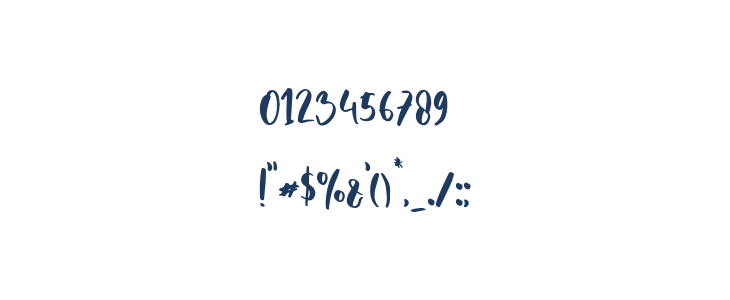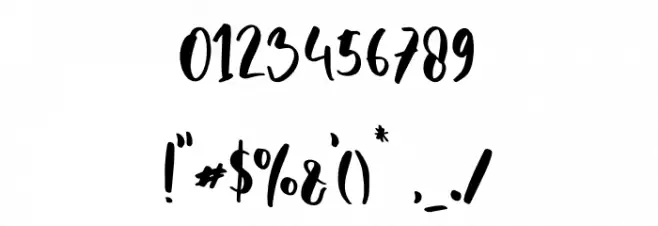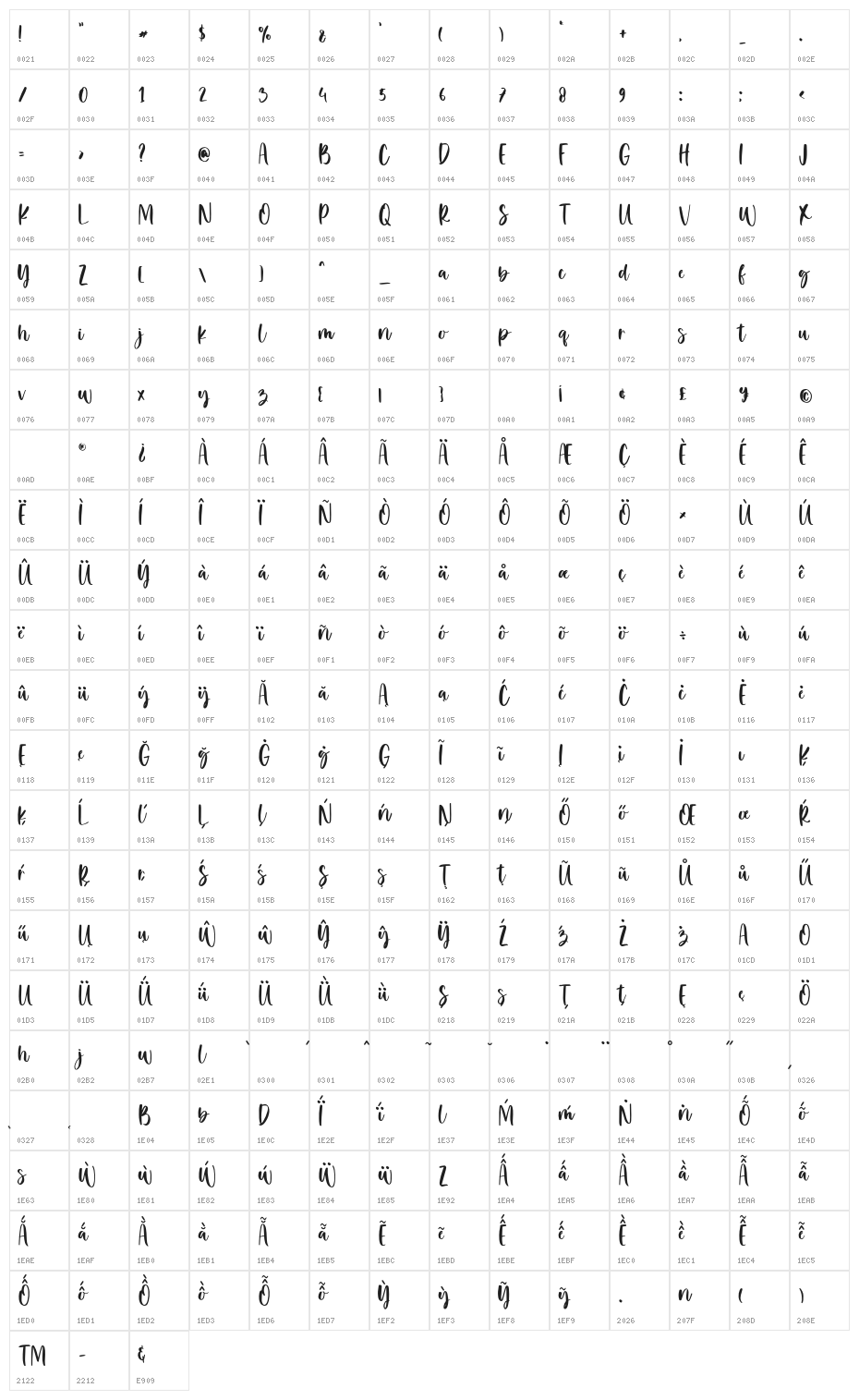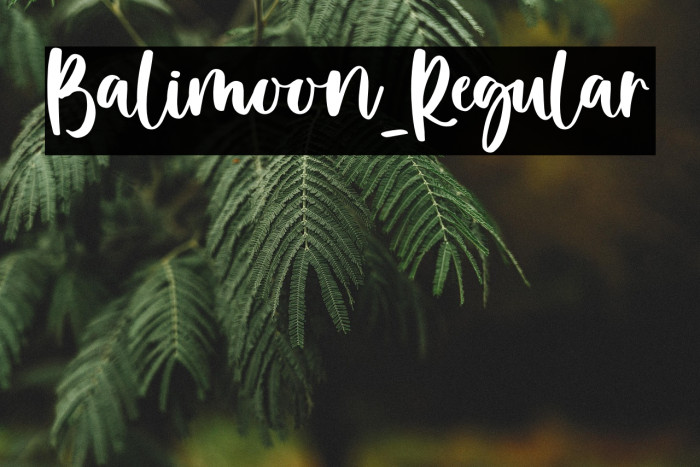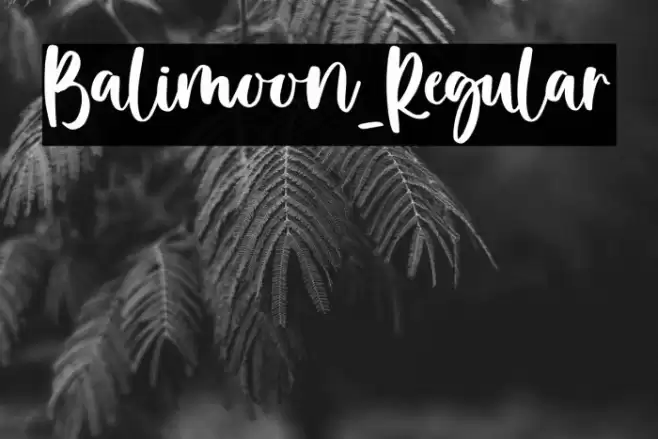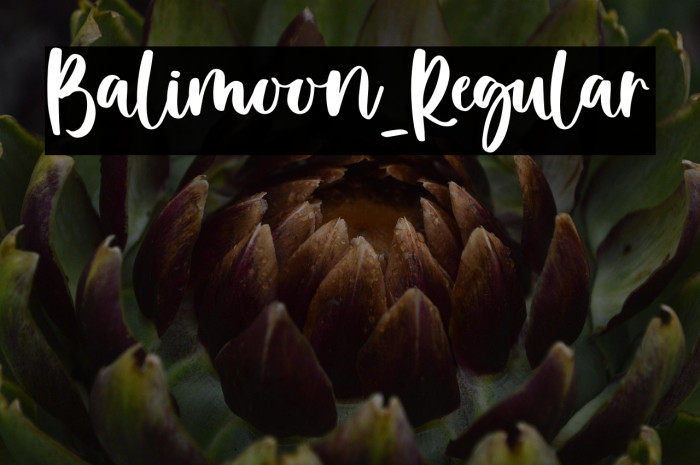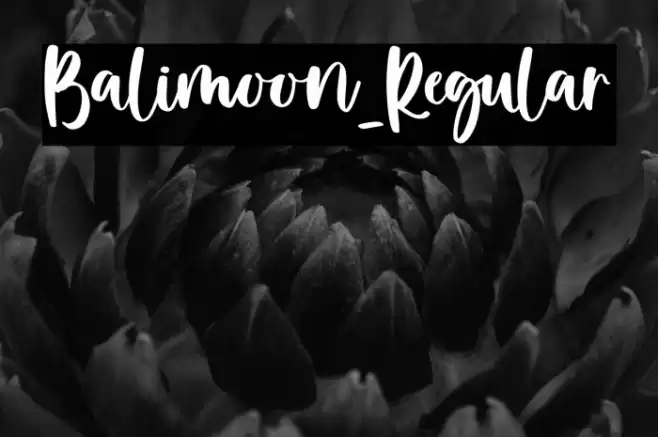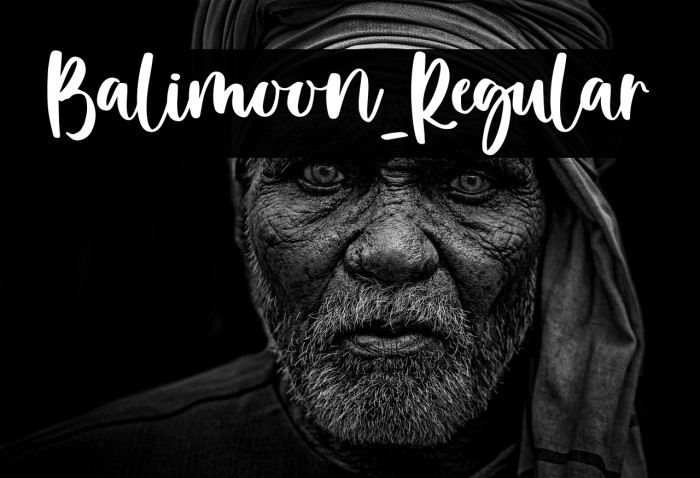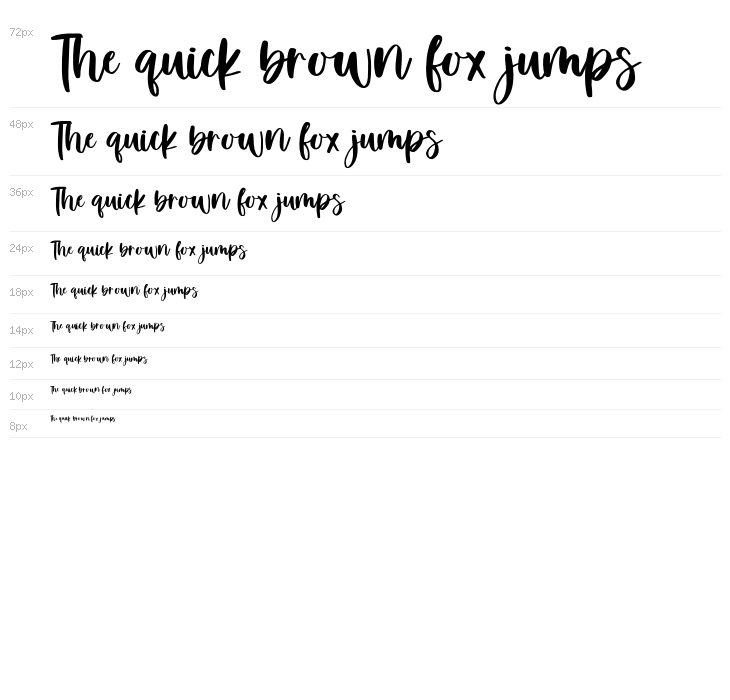
Balimoon-Regular Font
Balimoon-Regular Description
This font exhibits a playful and energetic handwritten style, characterized by its bold and flowing letterforms. The uppercase and lowercase letters are crafted with a consistent stroke width, giving a cohesive and harmonious appearance. The characters have a slight slant, adding a dynamic and lively feel. The font's rounded edges and smooth curves contribute to its friendly and approachable nature. It includes a full set of numerals and a variety of special characters, making it versatile for different design needs. The overall look is modern and stylish, suitable for projects that require a personal touch.